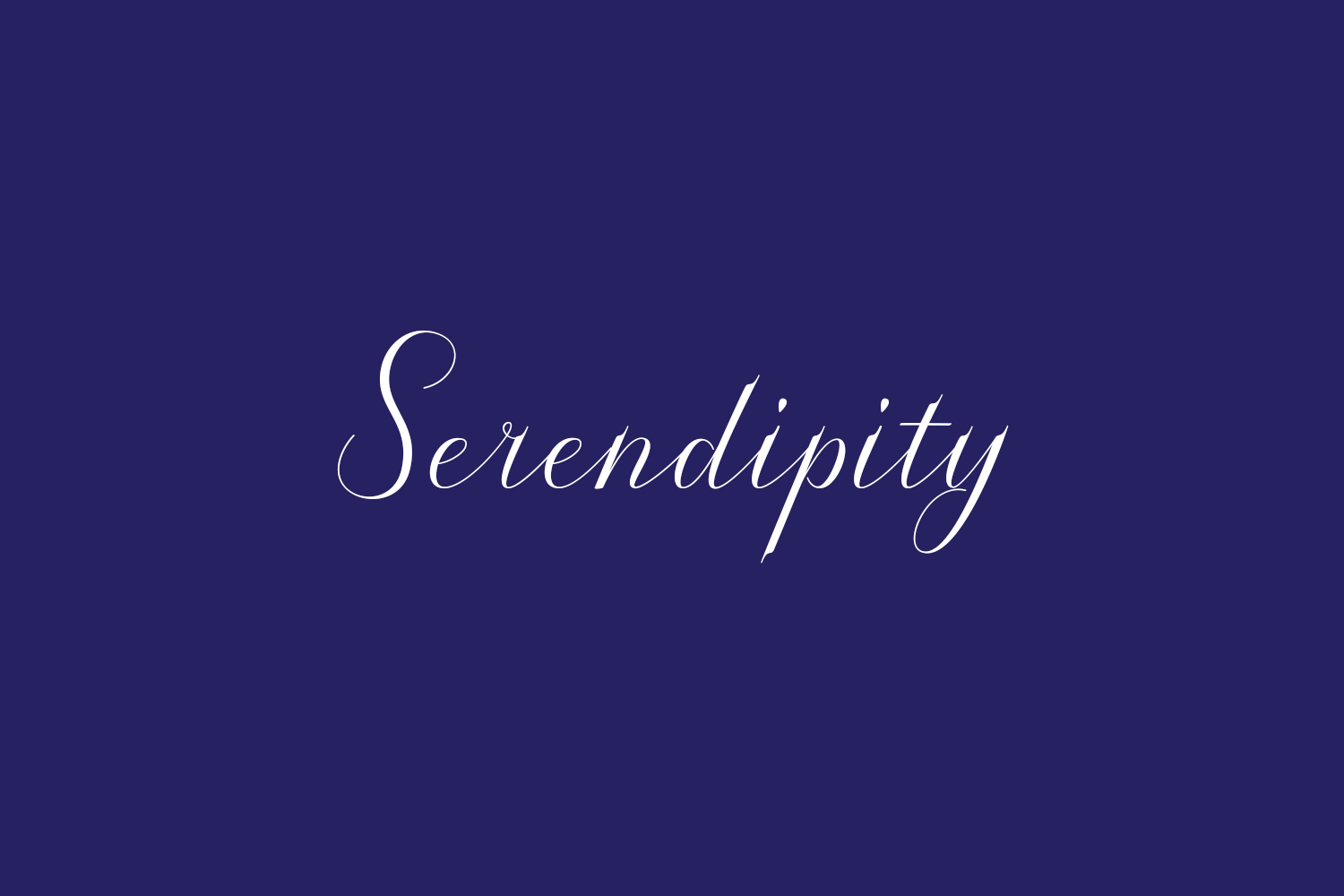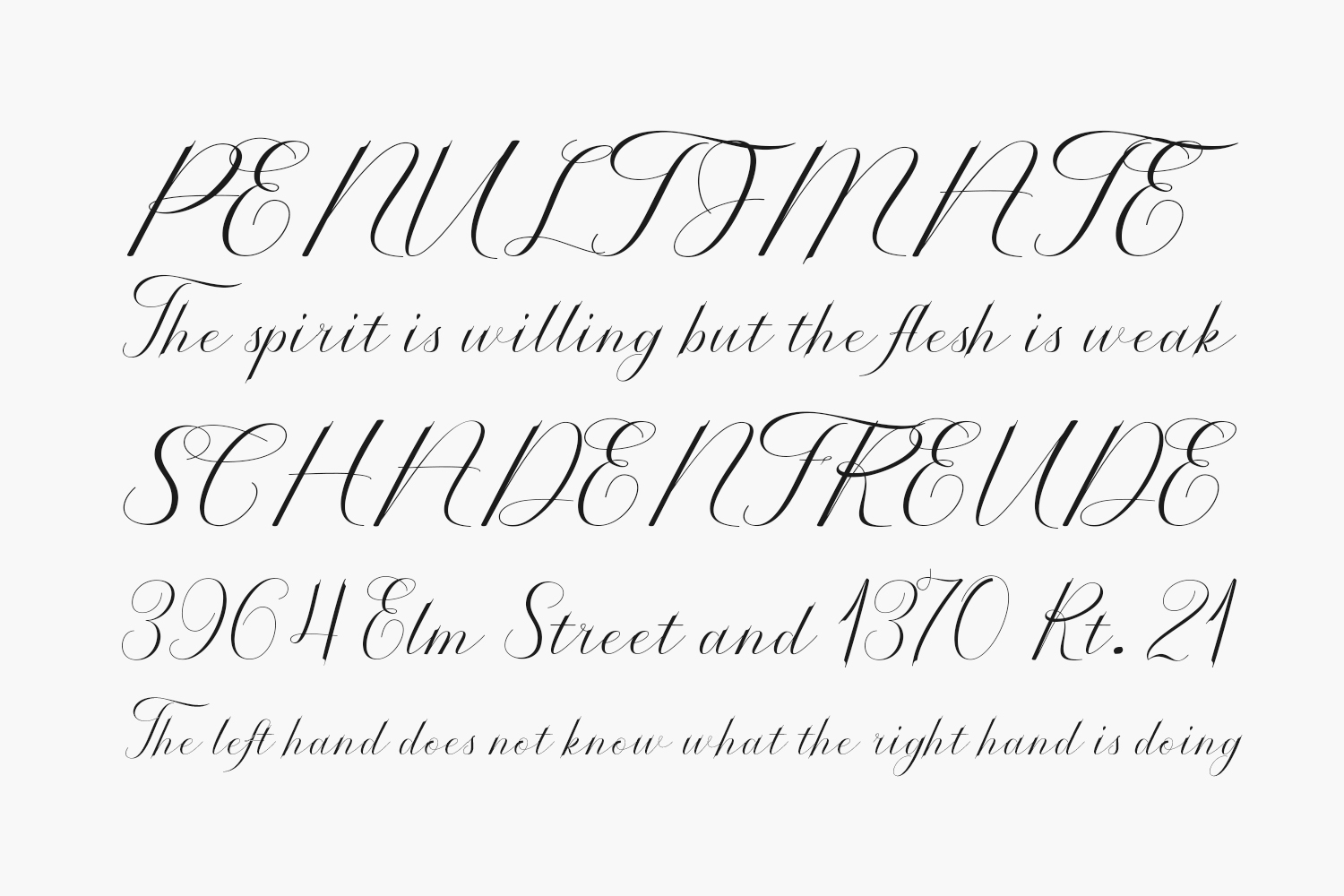
Serendipity Free Font is a truly classic calligraphy font; this thin, delicate and traditional script font will give your designs a timeless appeal, and this font excels in print work in large formats. Serendipity Free Font was designed by Cropstudio and is free for personal use only. Please purchase the full version for commercial use.